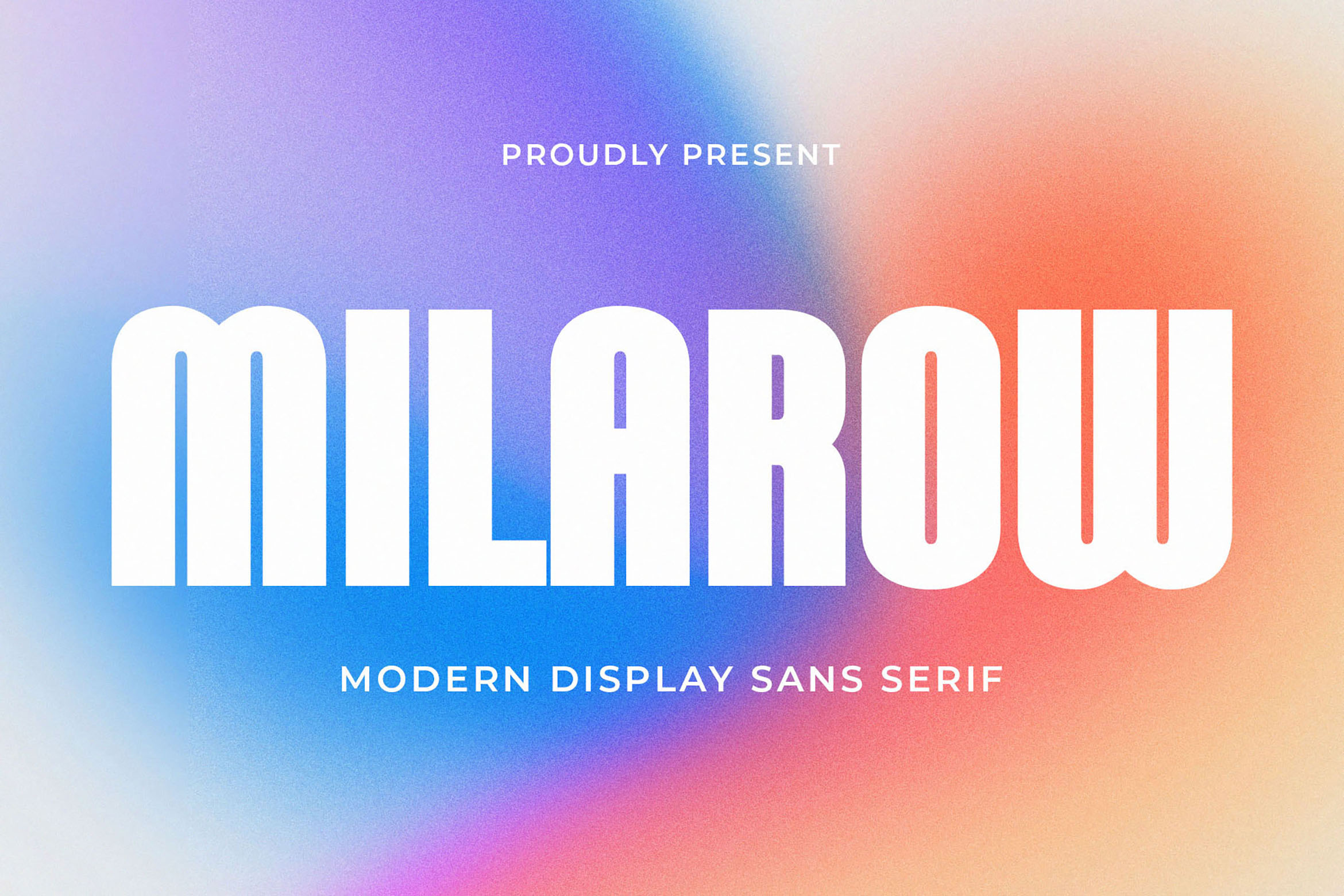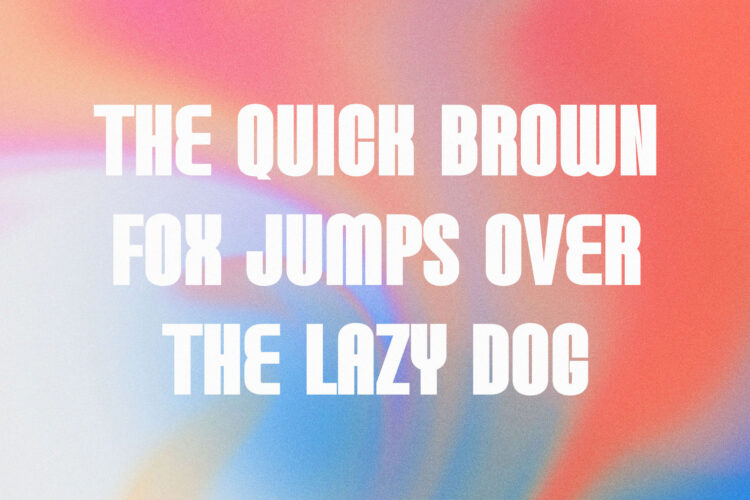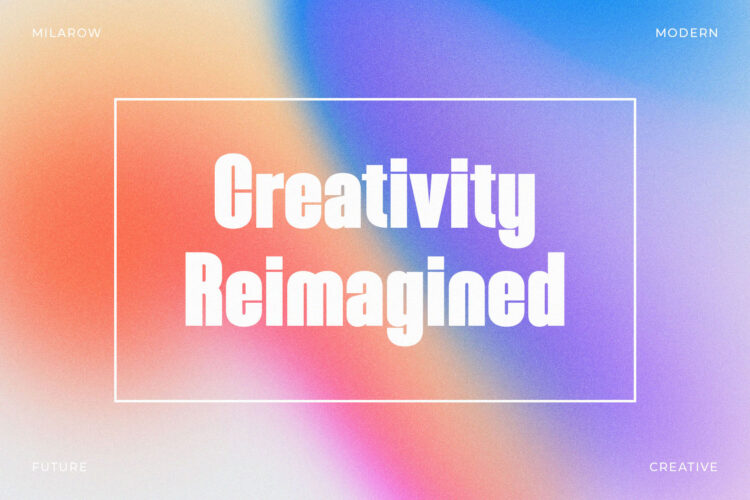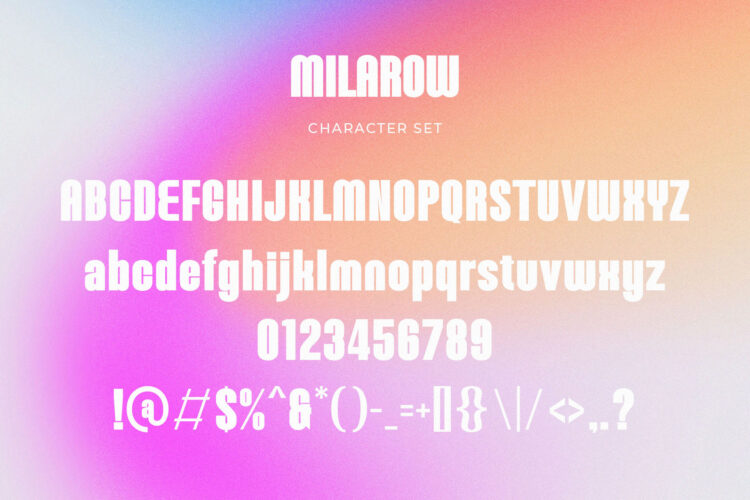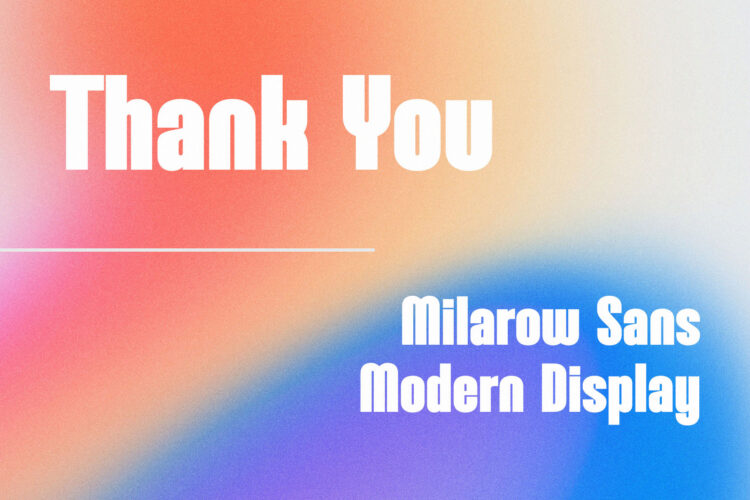
Introducing our new Milarow , modern sans serif font with elegant style this is perfect for branding, logos, invitation, magazines, product packaging and more.
Milarow – Modern Display Sans Serif